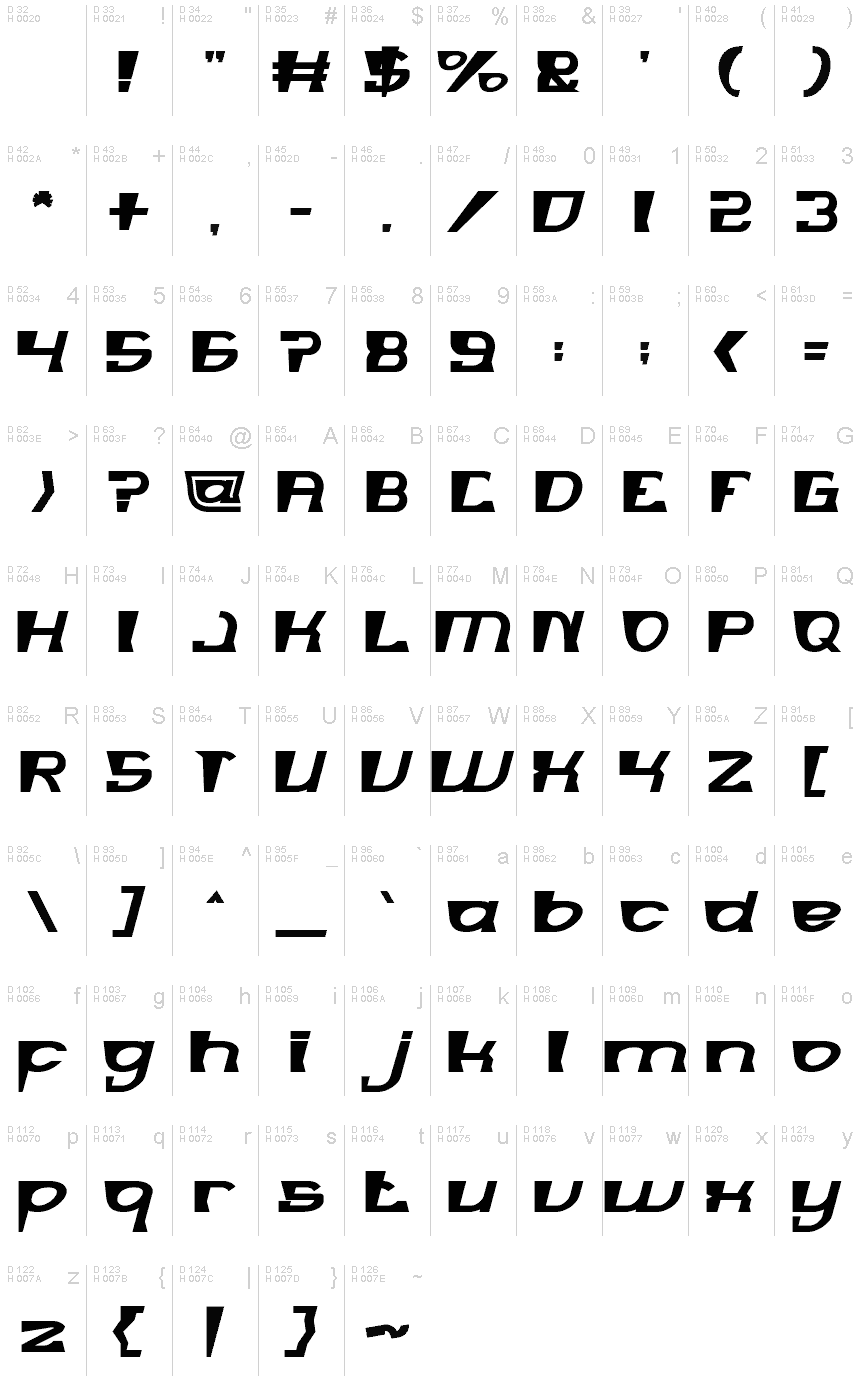
MERCURY Bold
Mercury Bold is a bold, techno-inspired display font that commands attention. Designed by Weknow, this expanded typeface exudes a powerful, futuristic aesthetic. The sharp, angular letterforms and dynamic negative spaces create a striking visual impact, making it well-suited for eye-catching headlines, branding, and digital applications.
The bold weight and expansive width add a sense of strength and impact, while the overall style evokes a modern, high-tech sensibility. Mercury Bold's distinctive character lends itself to a range of design contexts, from sleek, minimalist compositions to more avant-garde, experimental layouts. Its versatility and visual punch make it a compelling choice for designers seeking to make a bold, memorable statement.